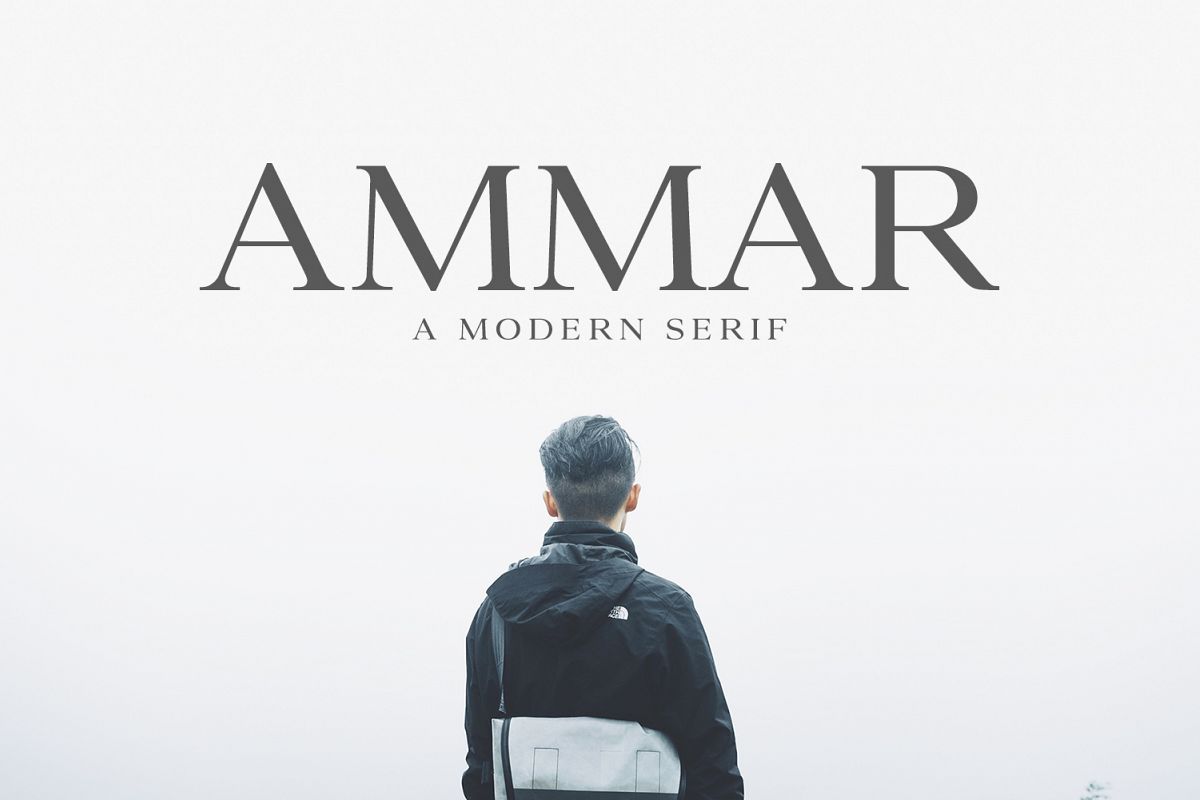
Ammar A Modern Serif Family
Ammar is a modern rounded serif font with 5 weights and support multilingual. It is great for headlines, logotypes, signage, advertising, magazine, logos, invitations, texts, posters, notices, titles, name card, web layouts, headers, branding, weddings, social media, product design, stationery, and other any business related.
• Font Weight: Regular, Thin, Light, Round, and Bold
Font Features:
• Uppercase Letters
• Lowercase Letters
• Number and Punctuation